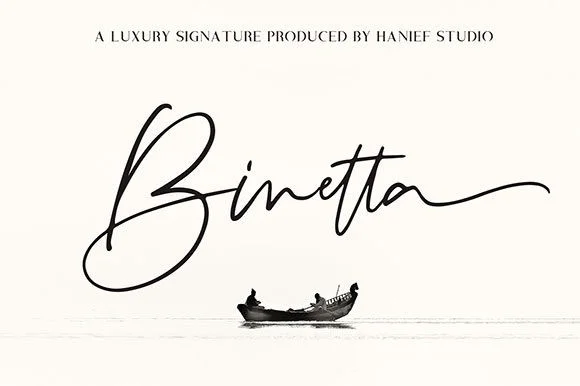
Binetta Signature Font
Binetta Signature Font is perfect for a wide range of design projects including personal branding, elegant logos, luxury product labels, sophisticated wedding invitations, fashion boutique designs, beauty salon graphics, signature watermarks, and upscale social media content. Its refined character makes it an exceptional choice for projects that require authentic handwritten elegance and personalized sophistication.
What makes Binetta Signature Font exciting is its flawless execution of genuine signature aesthetics that exude confidence and personal style. The font features naturally flowing letterforms with smooth connections and elegant flourishes that perfectly mimic real handwritten signatures, creating an intimate and luxurious feel. Its distinctive personality adds instant sophistication and exclusivity to any design, making it ideal for premium brands that want to convey authenticity, refinement, and personal touch.
Binetta Signature Font comes in multiple font families including Regular, Bold, Swash variations, Alternate characters, Ligatures, and decorative flourishes. These comprehensive options allow designers to customize their typographic compositions and add unique personal touches that enhance the signature quality and overall elegance of their creative work.
Whether you're creating sophisticated brand identities, designing luxury packaging, or developing personalized marketing materials, Binetta Signature Font Free Download offers the perfect combination of authentic handwritten style and professional polish. The font's flowing nature works beautifully as a standalone signature element or paired with complementary serif and sans-serif typefaces, ensuring your designs communicate elegance and exclusivity.